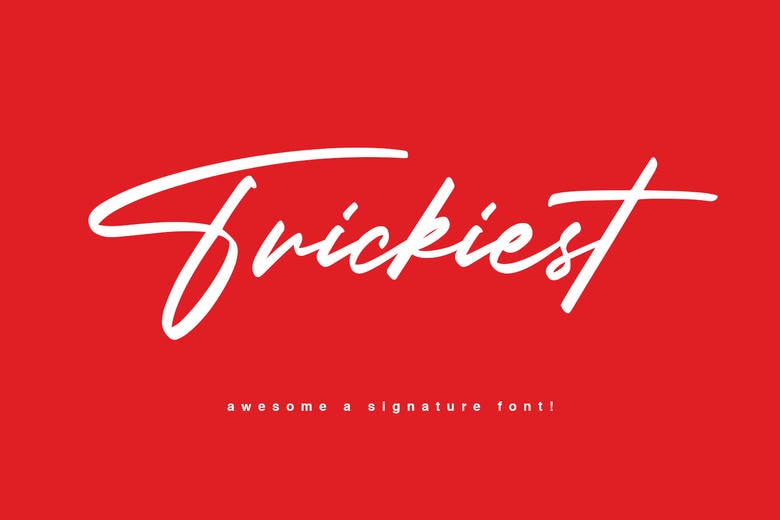
Trickiest Font
Trickiest sounds as gentle and smooth as Feelings. This wonderful handwritten font is simply a splendid raivalry to the timeless calligraphy style. It is ideal for creating unique and stunning designs and therefore the best font to use.
Trickiest Handwritten Script Font